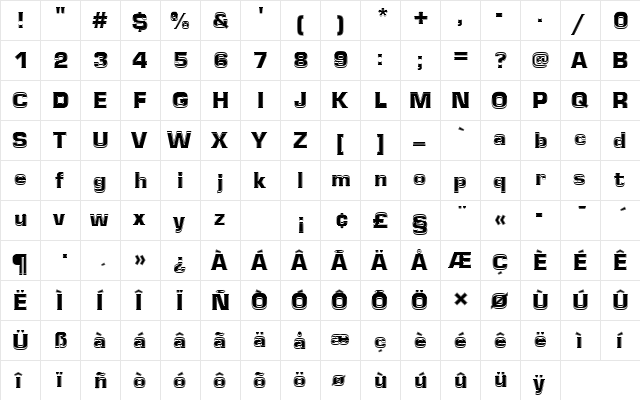
EurostileTBlaIn1 Regular
Design Context for EurostileTBlaIn1 Typeface
EurostileTBlaIn1 takes a measured approach to typography — its balanced proportions and neutral character make it a reliable workhorse for both digital and print work.